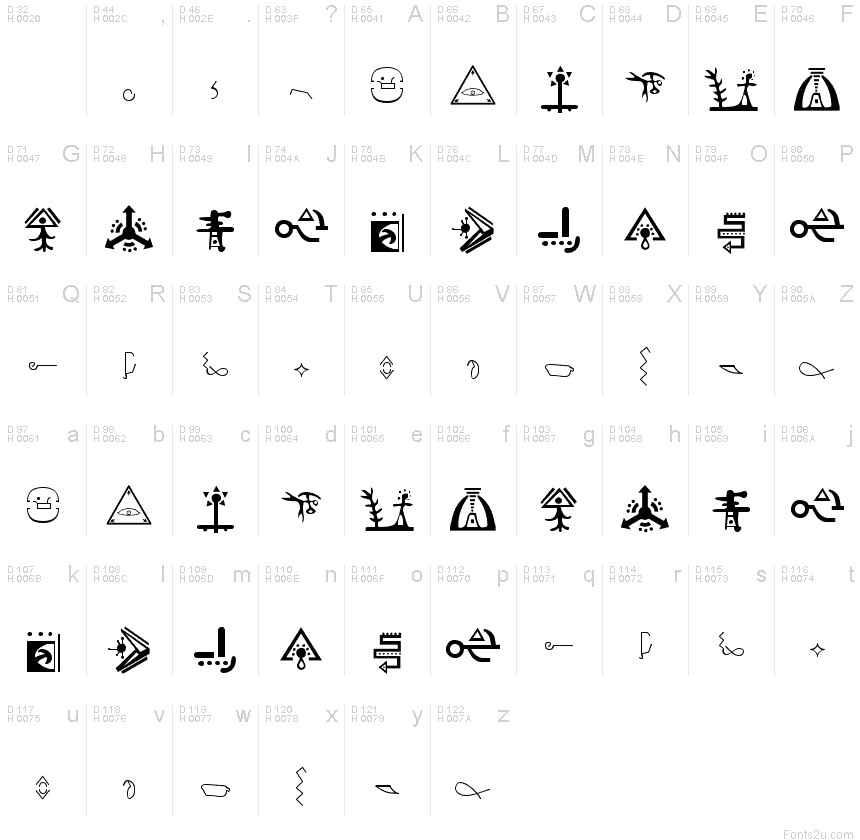
Golden Disks
Based on several character sets from the Beastwars Transformers TV show. Characters come from both the golden disks and the alien tower from The Trigger. Fonted by Jim Sorenson, to be distributed freely. Characters A - P are from the golden disk,